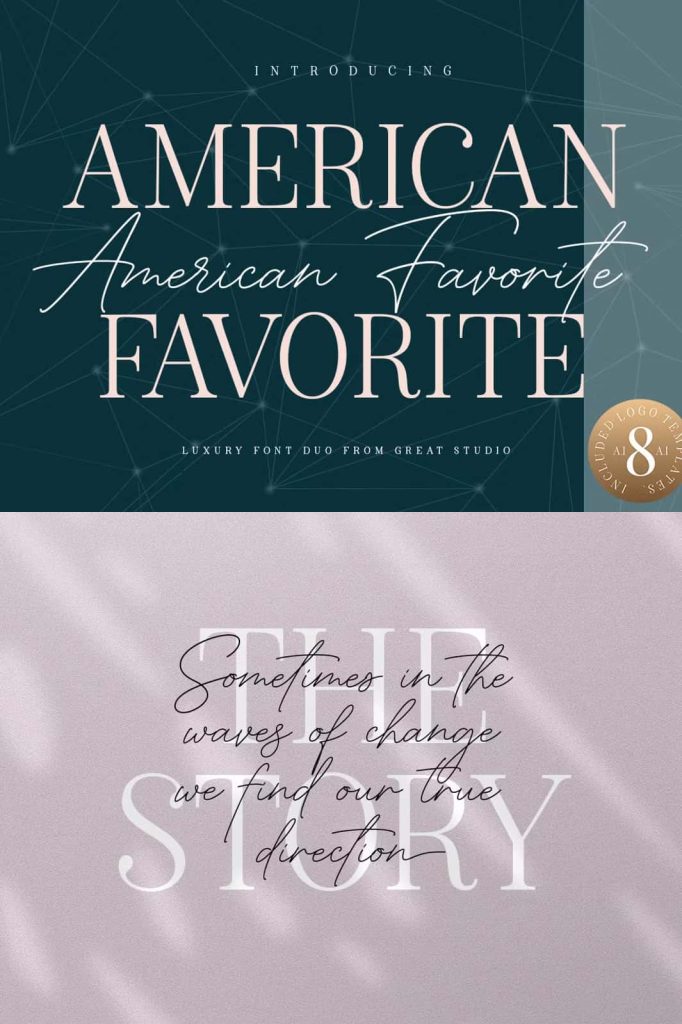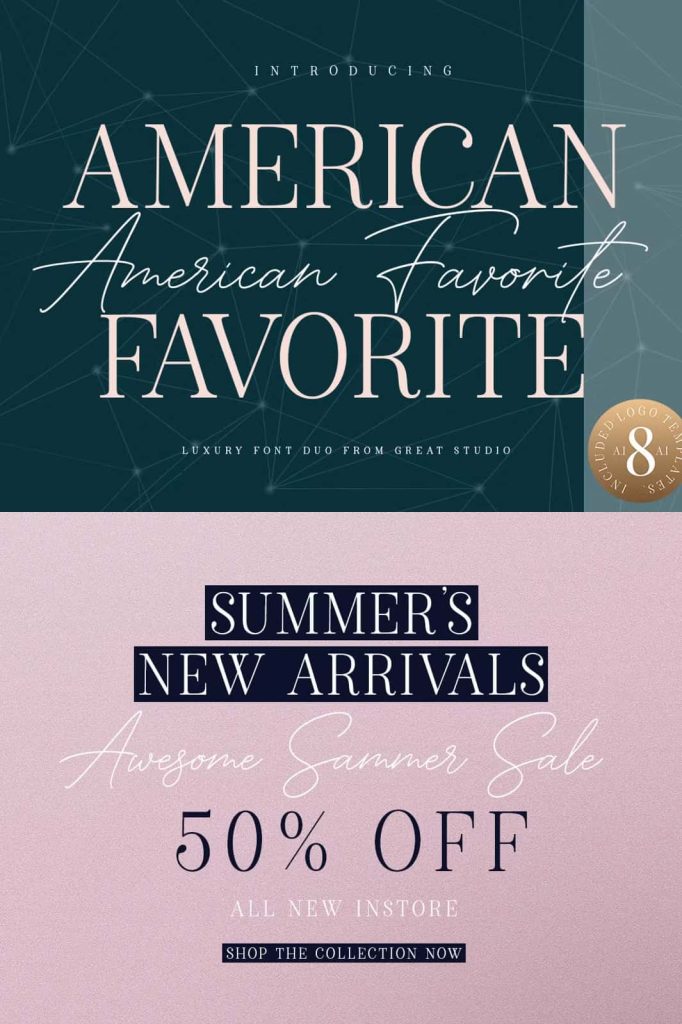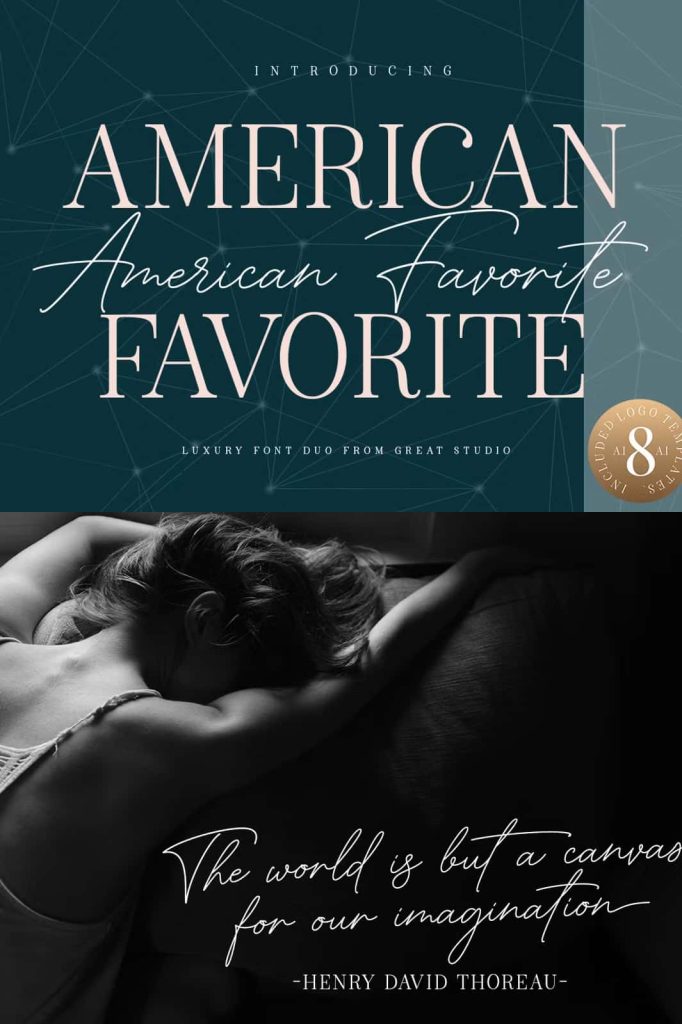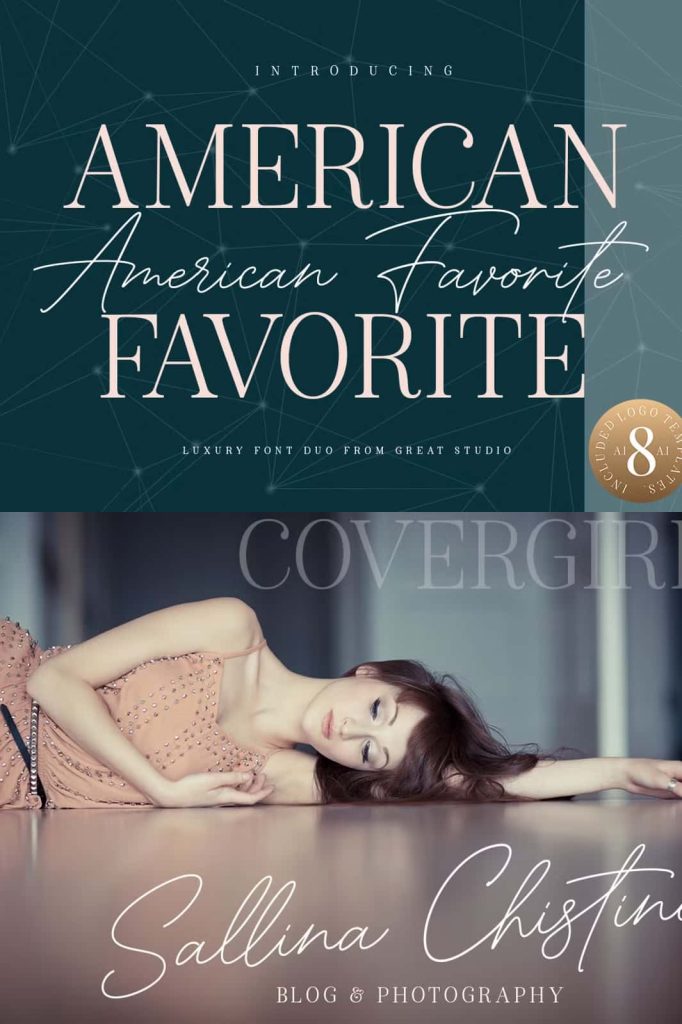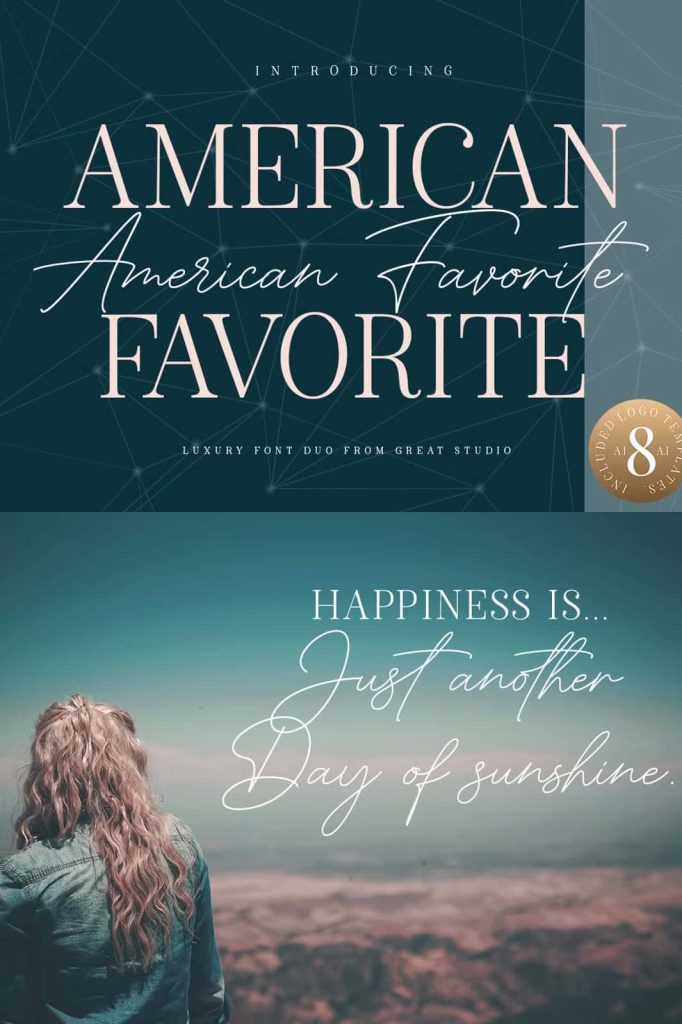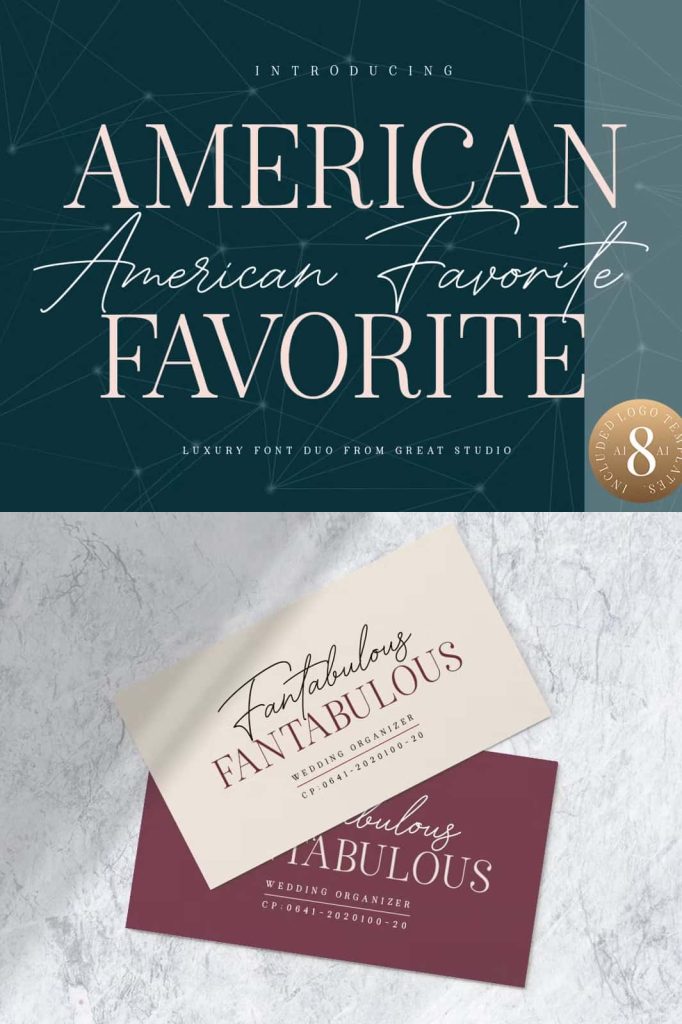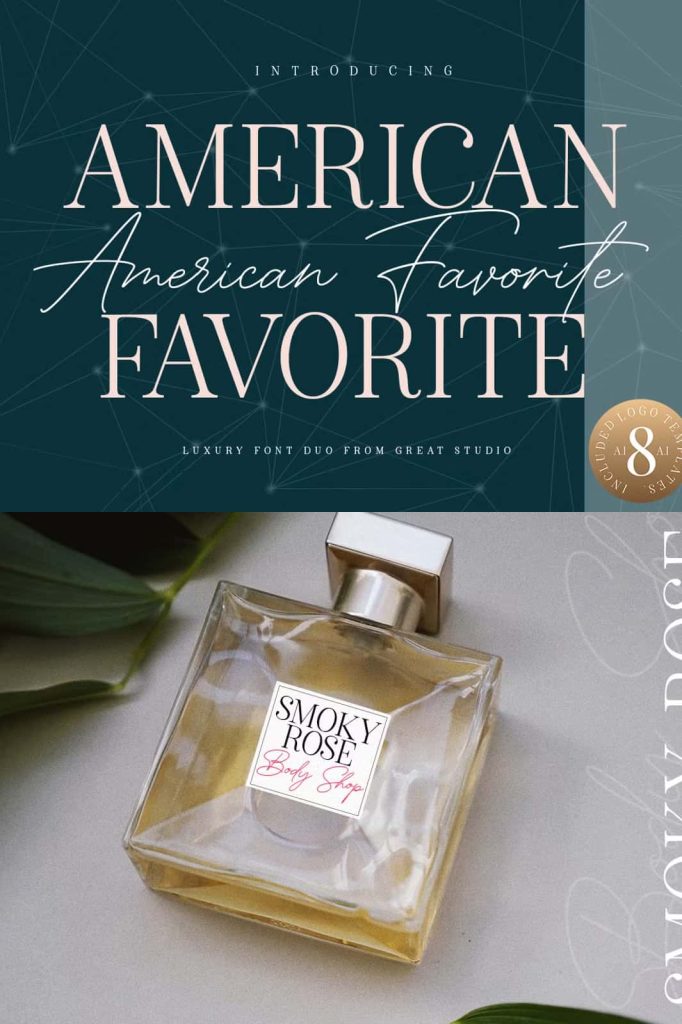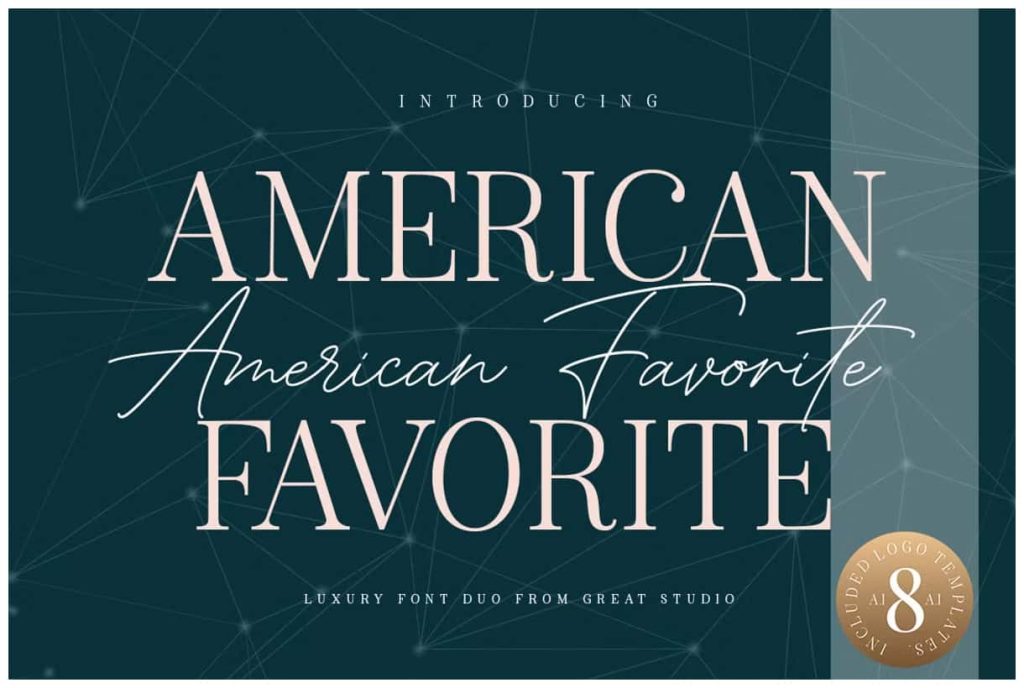
American Favorite Font Duo + LogoleastedJune 2, 2025Fonts American Favorite is a luxury font. which comes with a combination of modern and elegant fonts Download